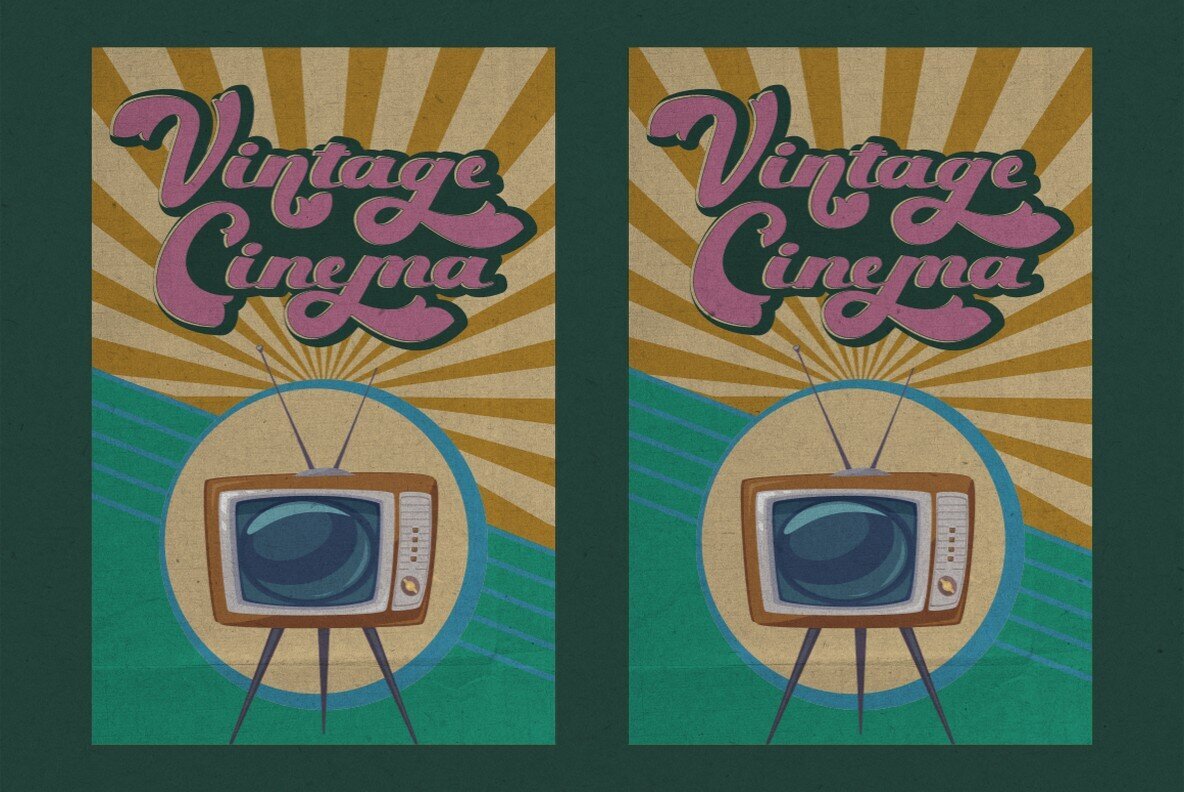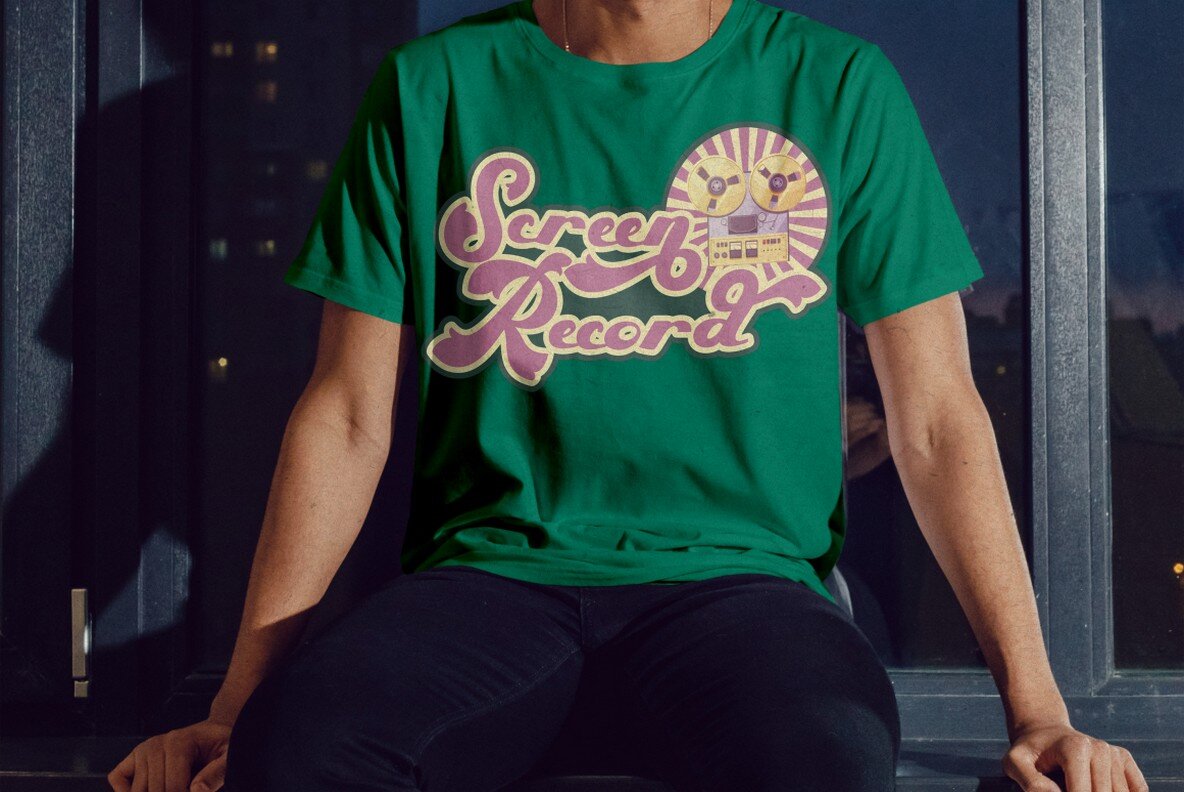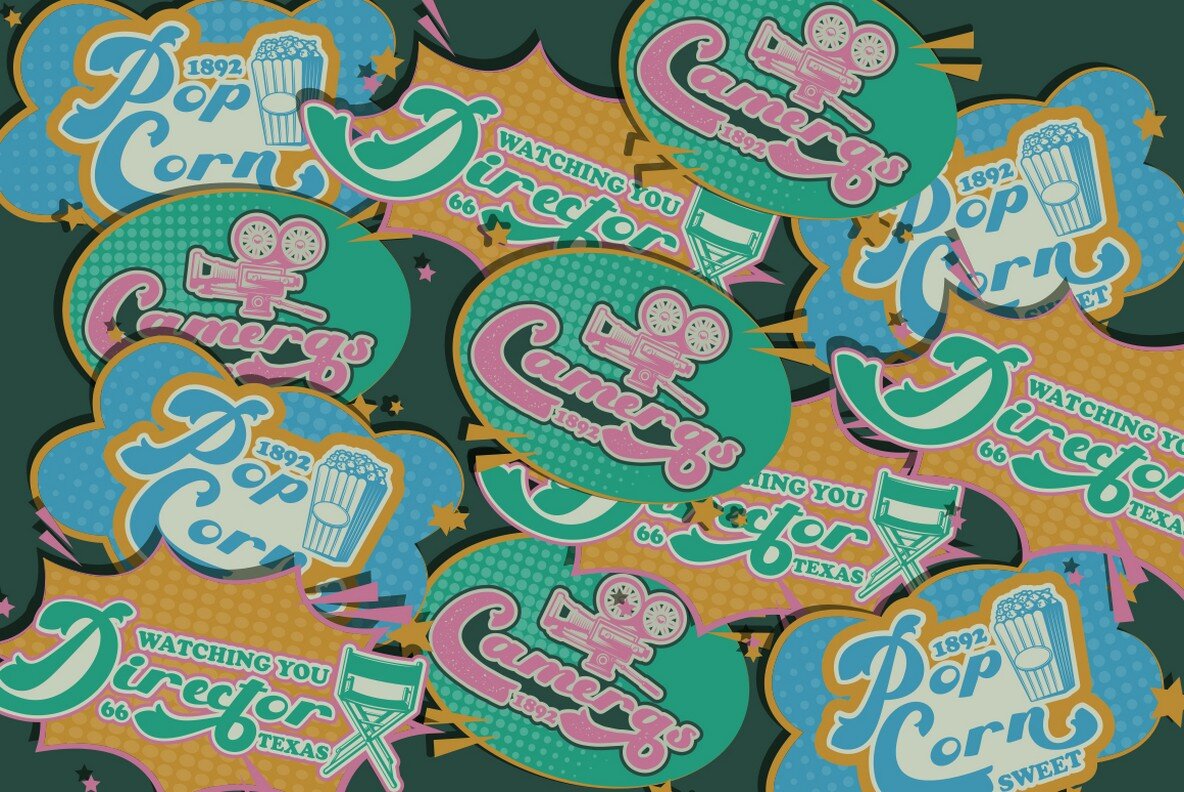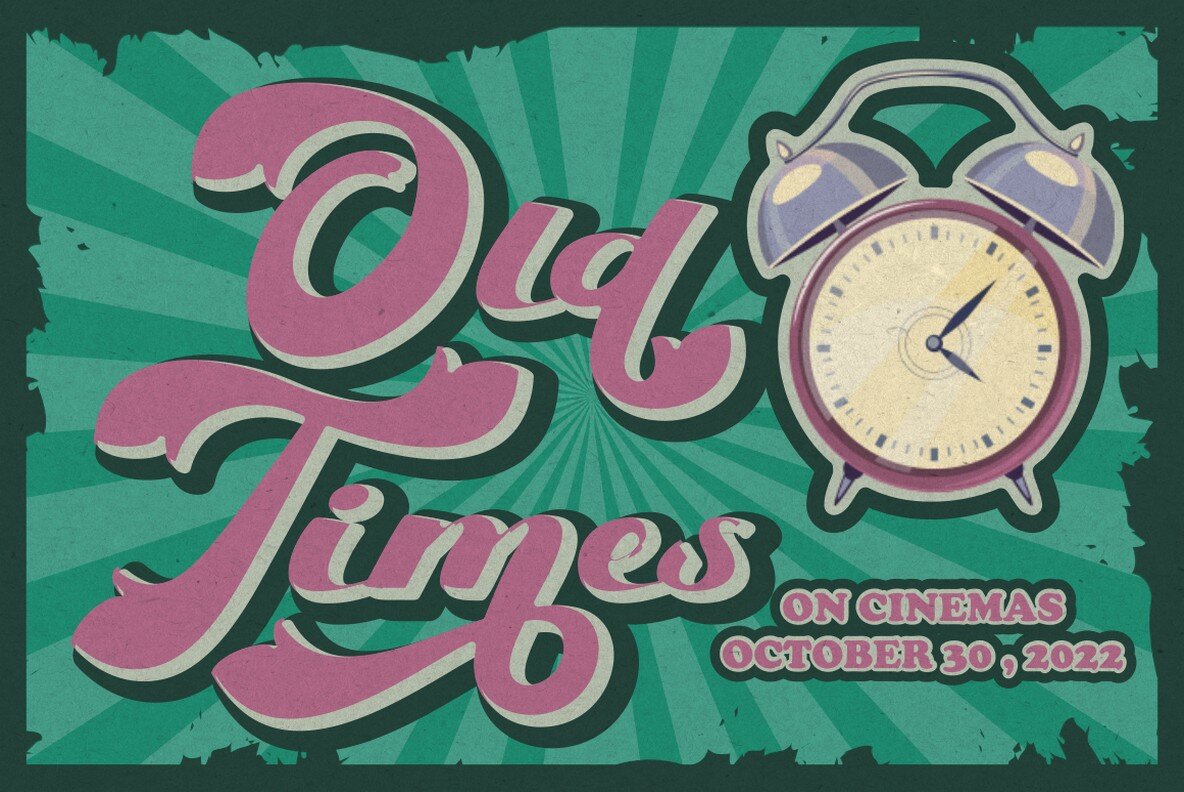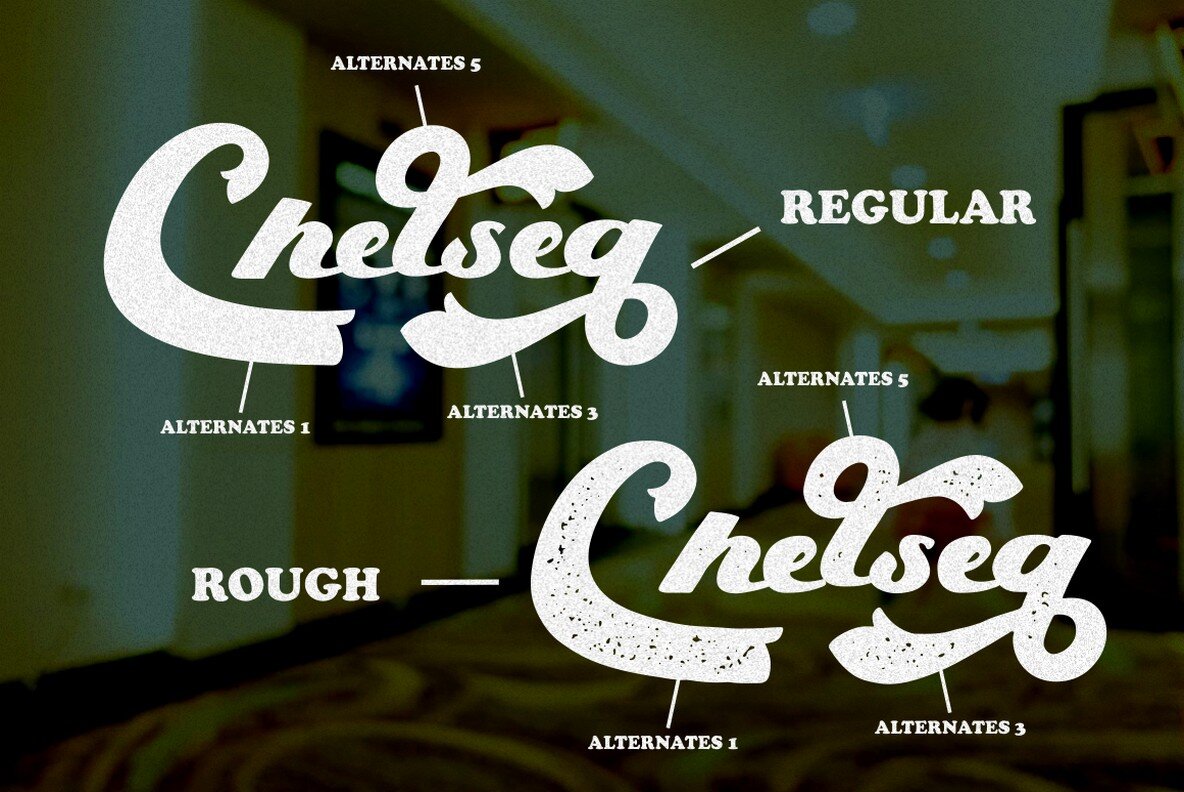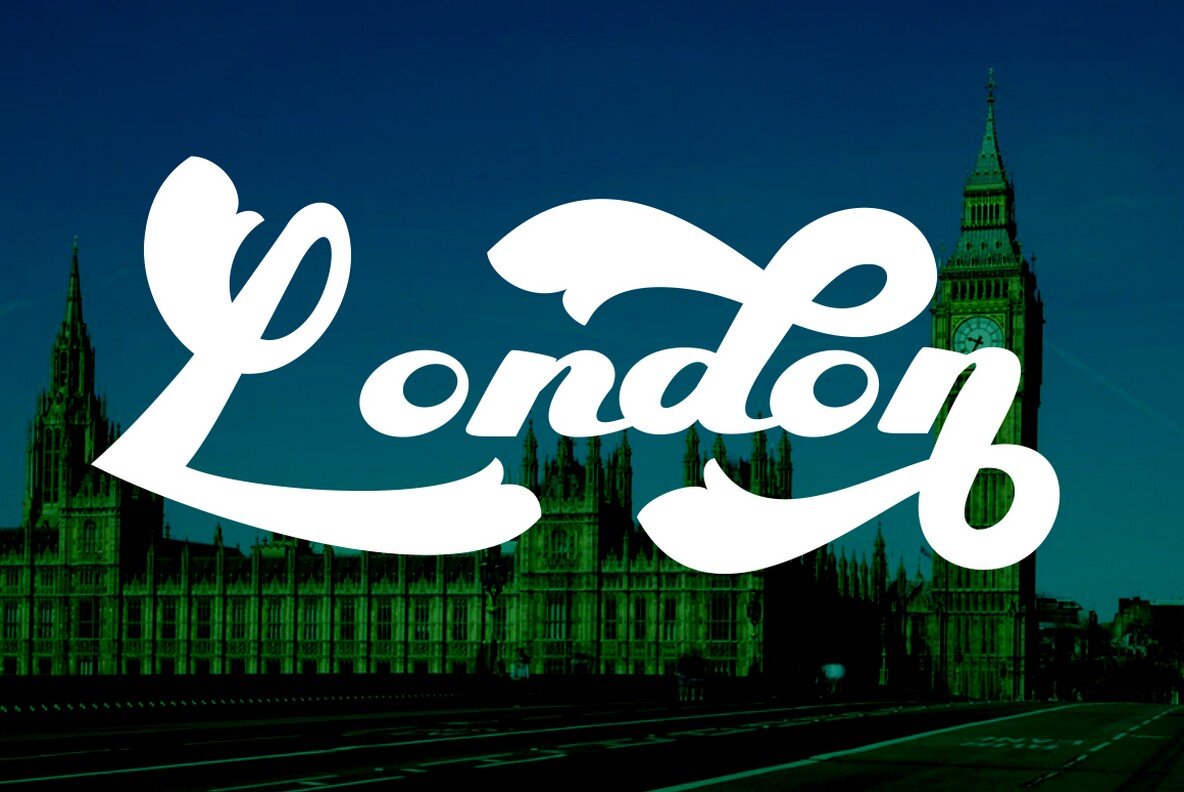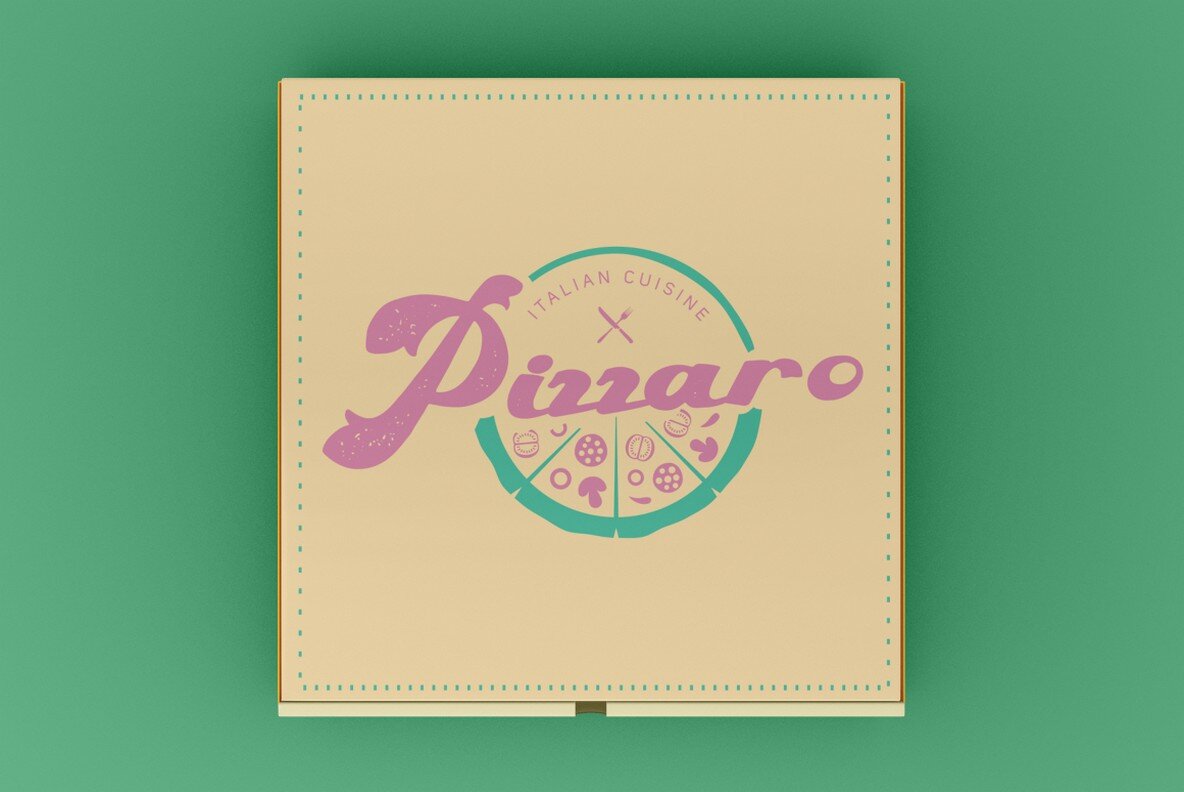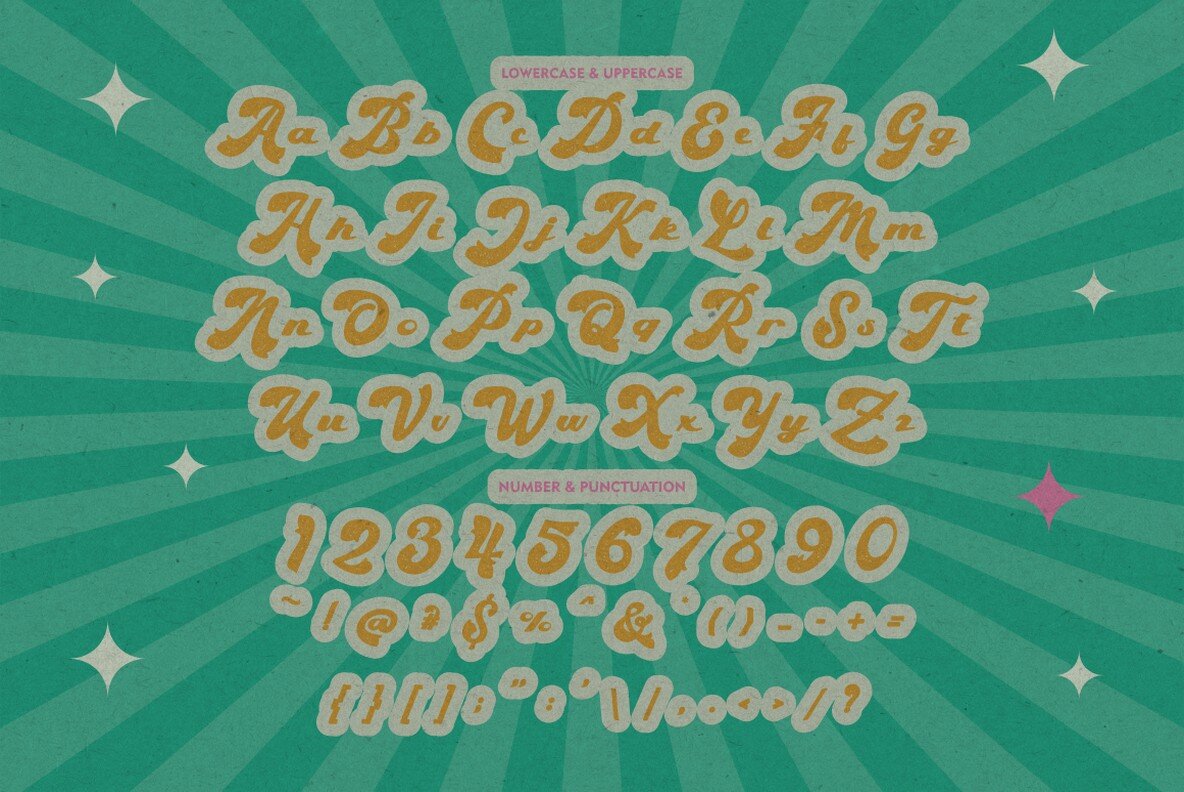
Royal Banks Font
Royal Banks
Royal Banks Texture
Designed with a fusion of retro charm and luxurious elegance, Royal Banks is a standout typeface perfect for a variety of creative projects. Its bold character makes it suitable for themes ranging from vintage to high-end, effortlessly elevating logos, branding, posters, packaging, book covers, apparel, quotes, and titles. Royal Banks offers both clean and rough versions, enhancing its versatile appeal. The typeface supports a multitude of languages and is equipped with an extensive set of OpenType alternates, allowing designers to craft unique lettering. For accessing alternate glyphs, compatible software includes Adobe Illustrator, Adobe Photoshop, Adobe InDesign, Corel Draw, and Microsoft Office.Royal Banks: A Bold Retro Typeface